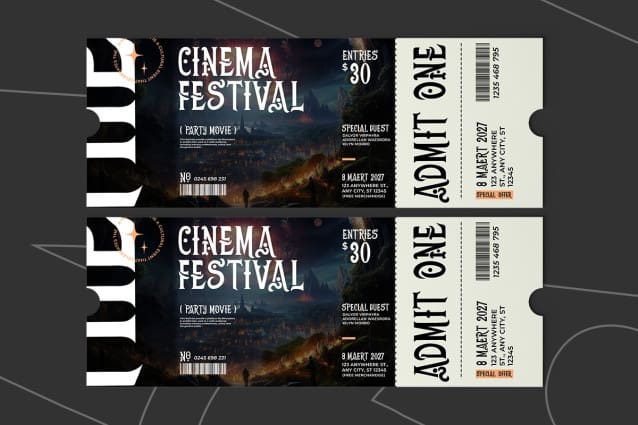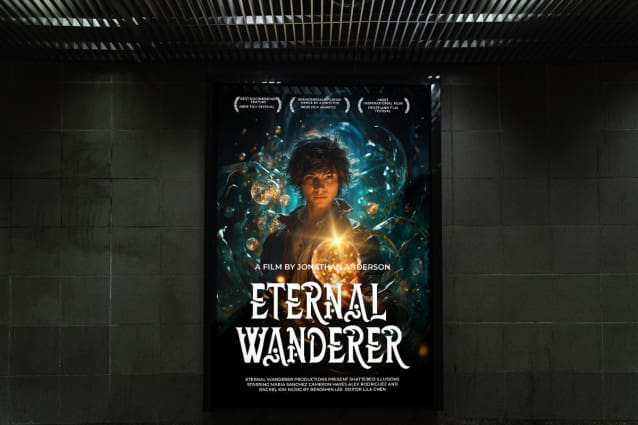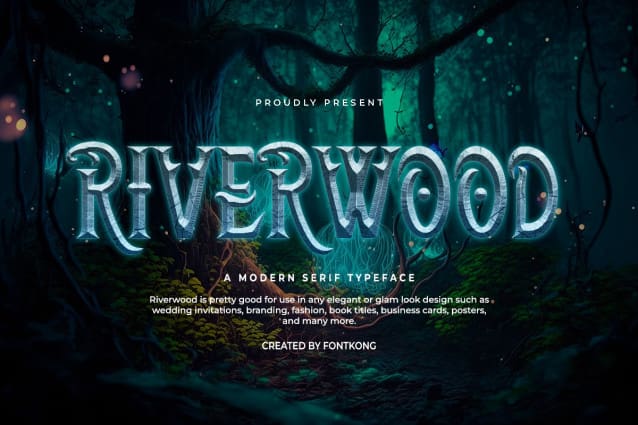
Riverwood Font
Riverwood Font – Modern Classy Serif Font Film is a typeface that exudes cool and is most elegant. Easy to read yet artistic, this font can serve multiple uses depending on the user. In the large and small text, this font is legible and reaching. Riverwood Font – Modern Classy Serif Font Film is a modern font and stylish font. This font was an arrangement to be an up-to-date serif-style typeface.
Riverwood Font – Modern Classy Serif Font Film may be used for product production, digitally and in promotions on the web and social media, as well as in printed forms such as magazines and posters. One product that can be combined with this font is fashion and beauty. The film production can use the Riverwood Font – Modern Classy Serif Font Film as their intro. This font can also be used as a brand on the product packaging. This font can be applied in screen printing, both in small and large quantities.
In modern business needs, Riverwood Font – Modern Classy Serif Font Film is also suitable for personal name cards and business signage indicating a place, such as cafes, boutiques, and makeup shops. Riverwood Font – Modern Classy Serif Font Film is one of the best fonts to use for wedding fonts and similar formal events. It can be applied to invitation cards and event banners.